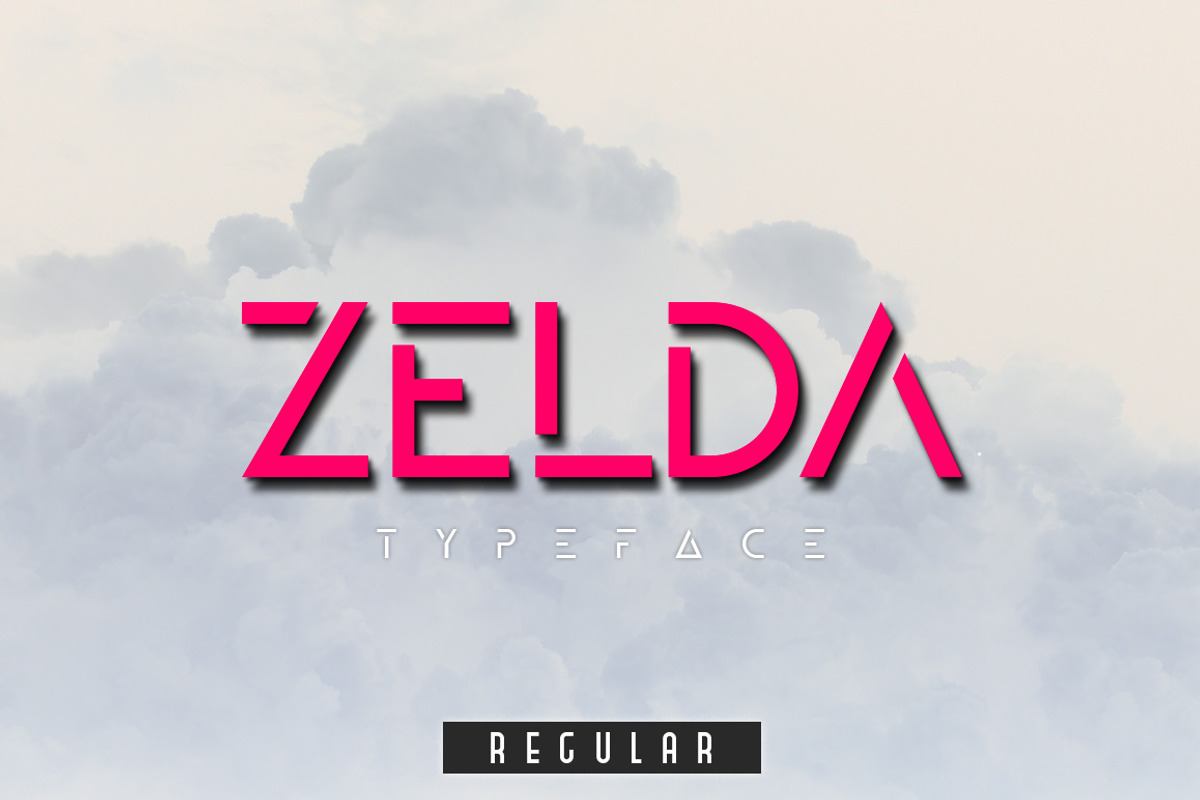
ZELDA Typeface (Regular) Free Download is a modern and minimalist typeface with clean lines and a refined aesthetic. Designed for elegance and versatility, ZELDA works beautifully across branding, editorial layouts, social media graphics, and packaging projects. Its sleek, geometric structure gives it a contemporary feel while maintaining classic legibility.
ZELDA Typeface (Regular) Free Download is ideal for designers looking to create a high-end, polished look in both print and digital media. From fashion magazines to tech startups, this typeface adds sophistication and clarity to any visual identity. With balanced proportions and a professional edge, it performs well in logos, headers, and body text alike.